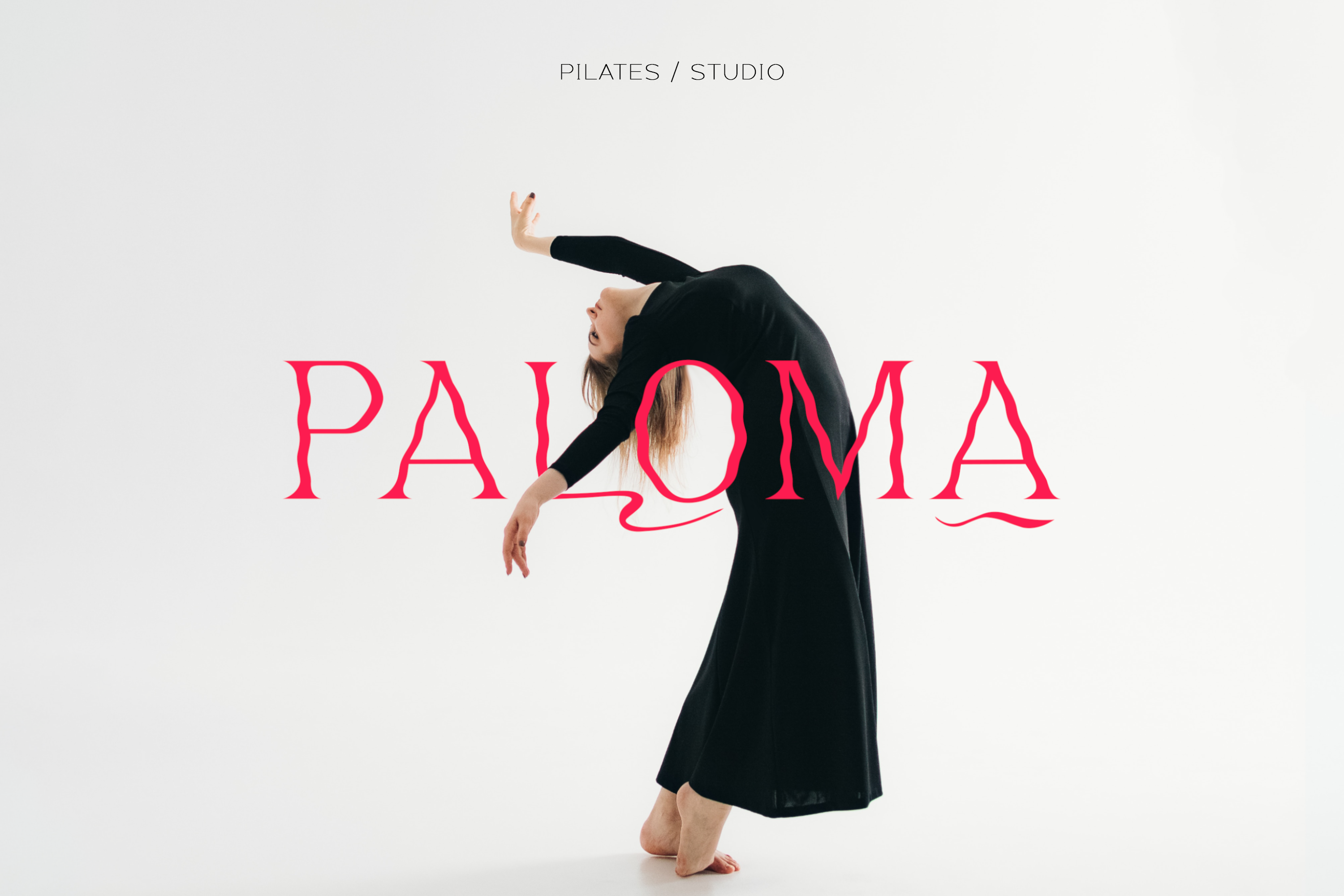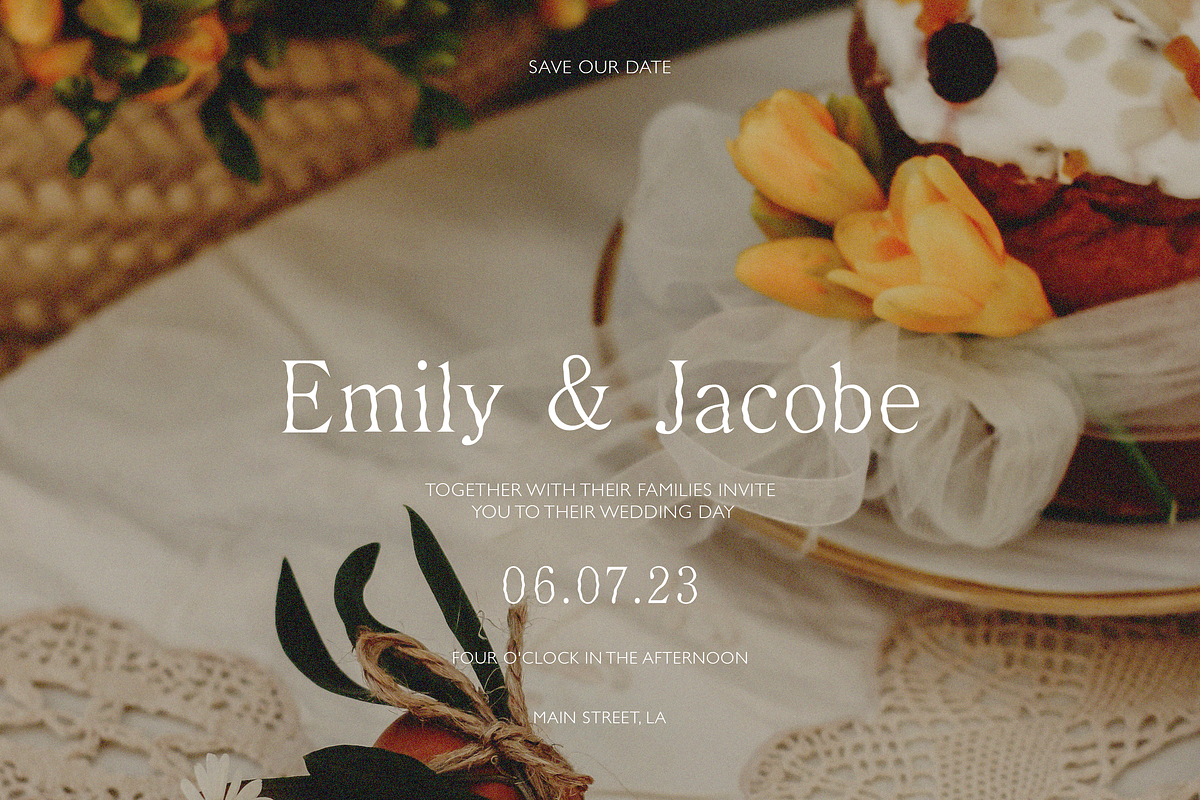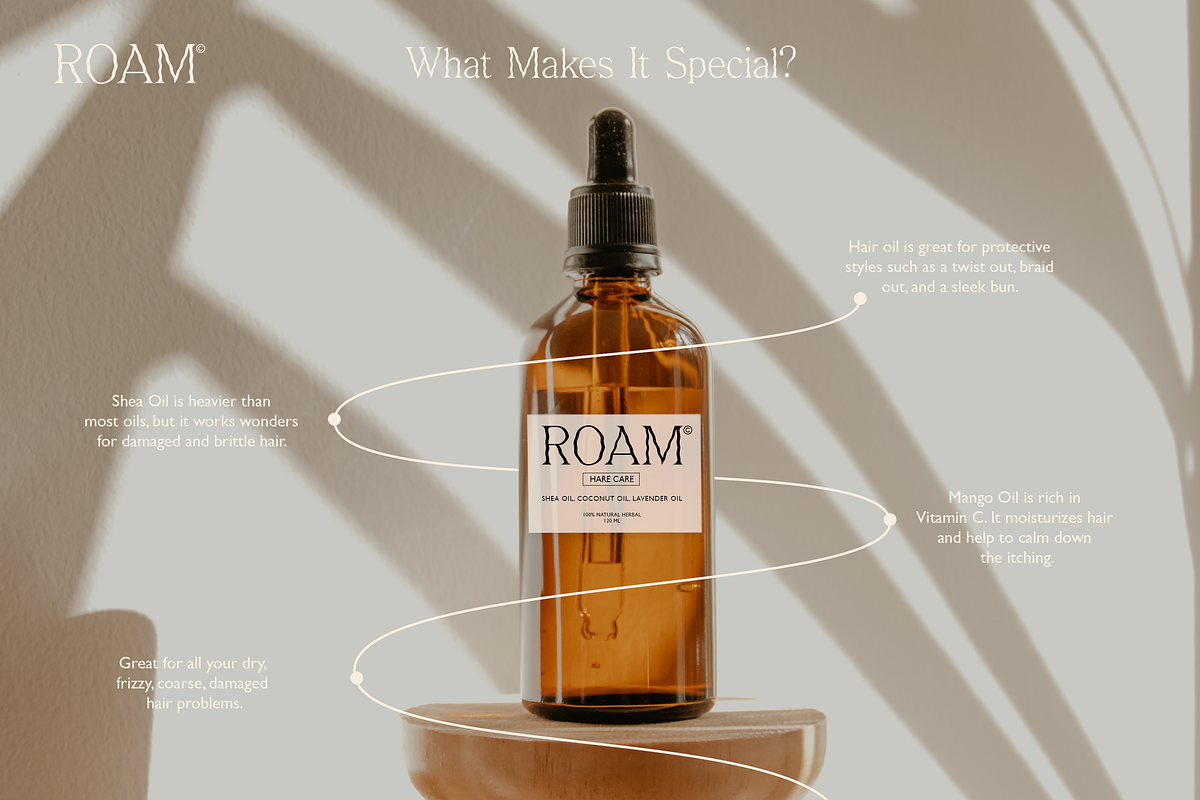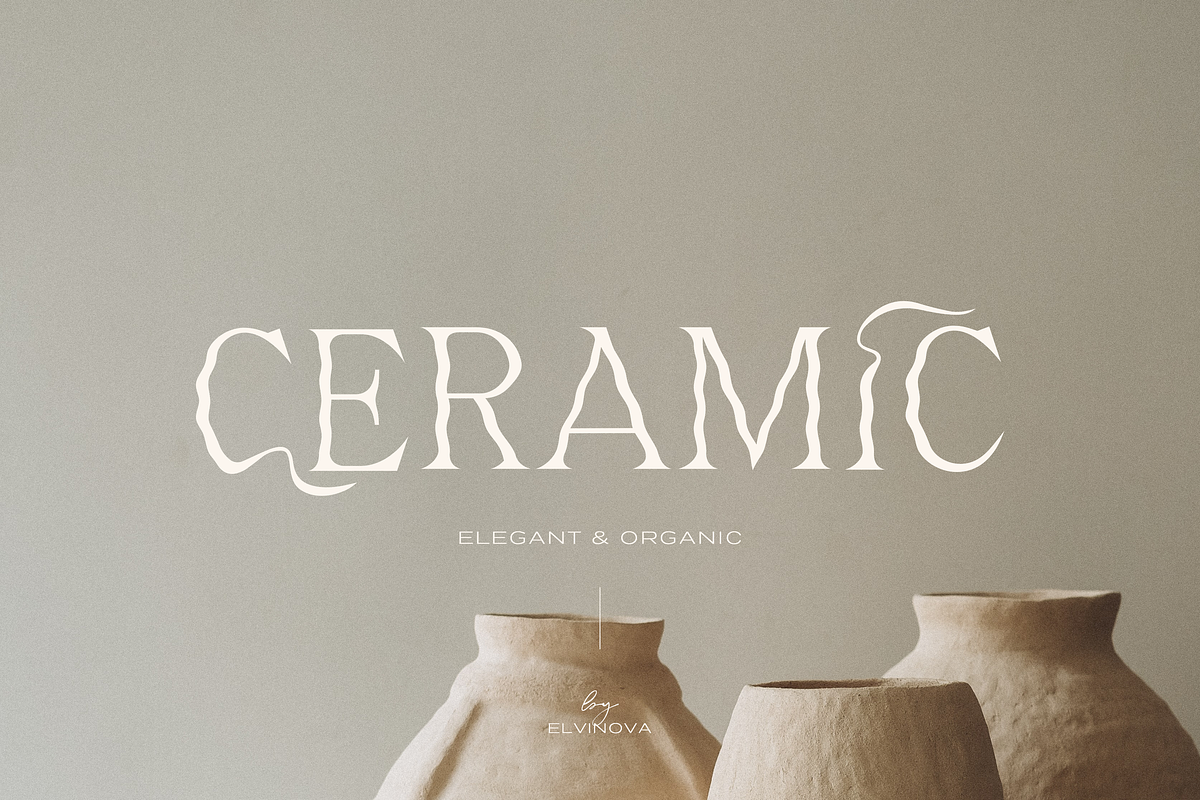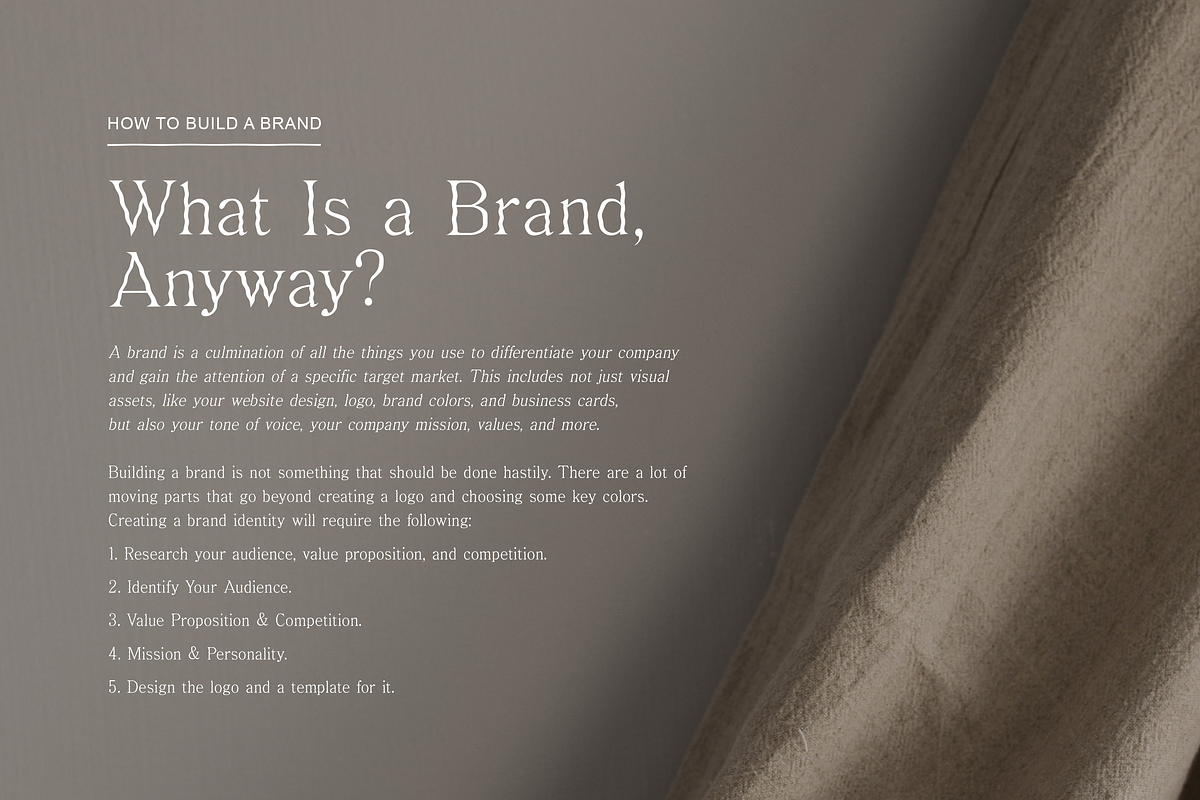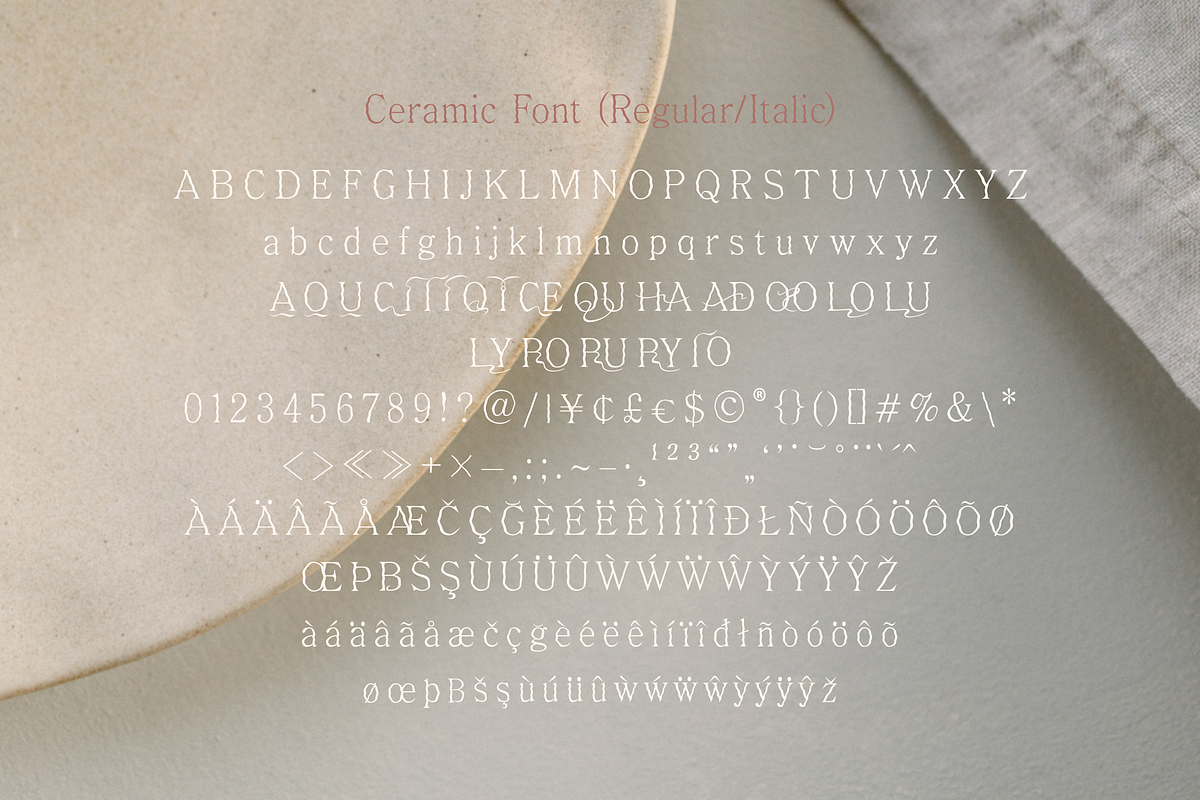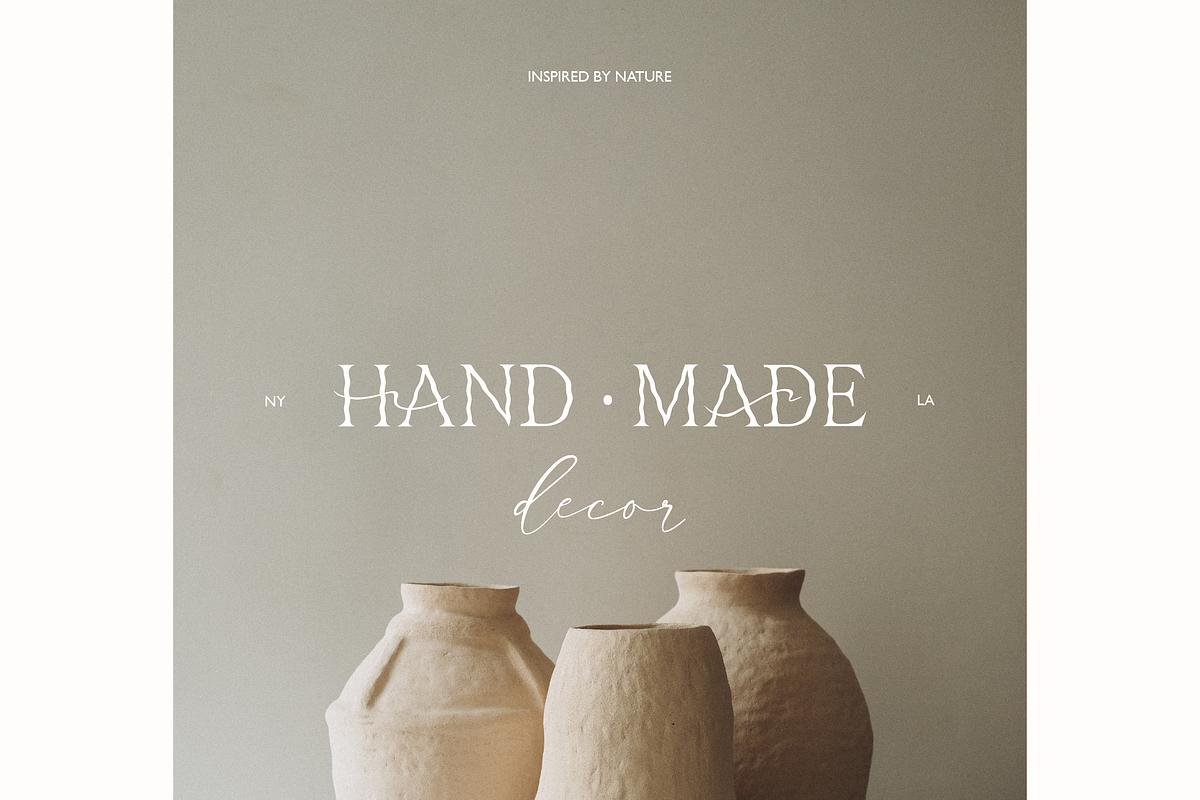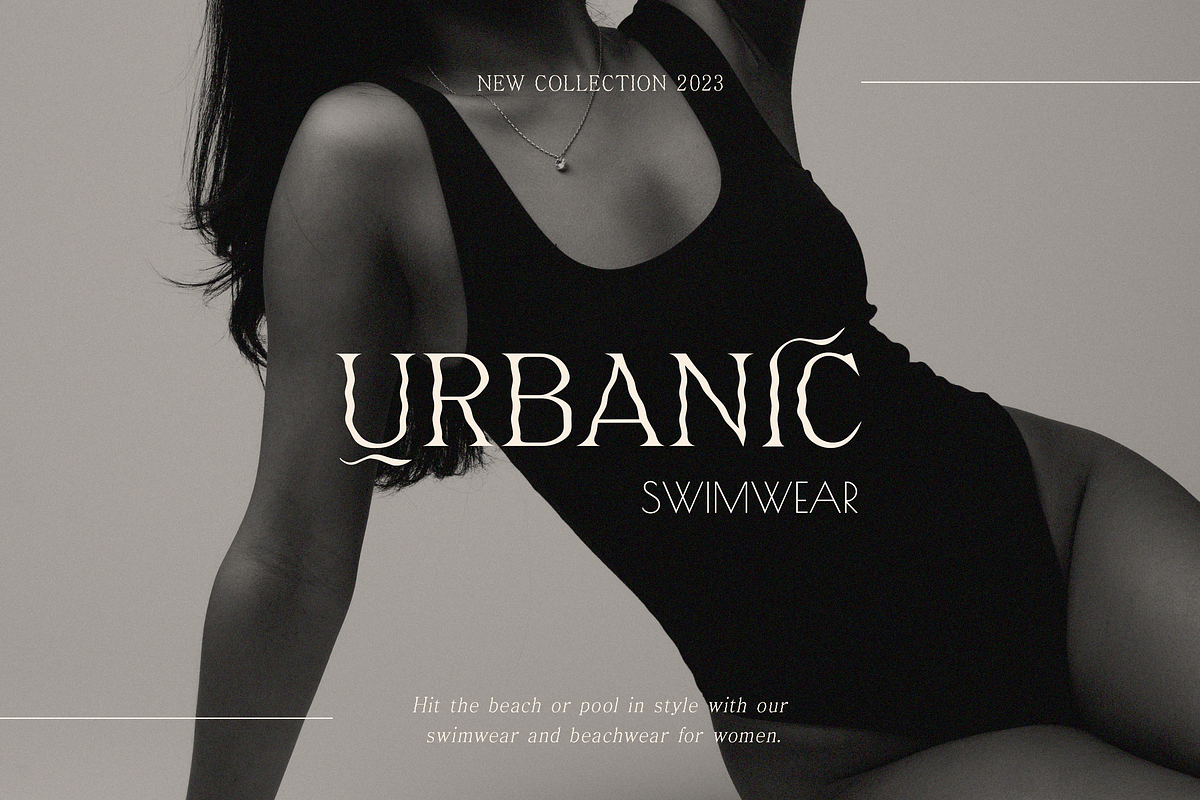
Organic Serif Font
Modern elegant font with beautiful curves. Good for handicraft branding, wedding, dance school, design studio, etc.
- Regular & Italic.